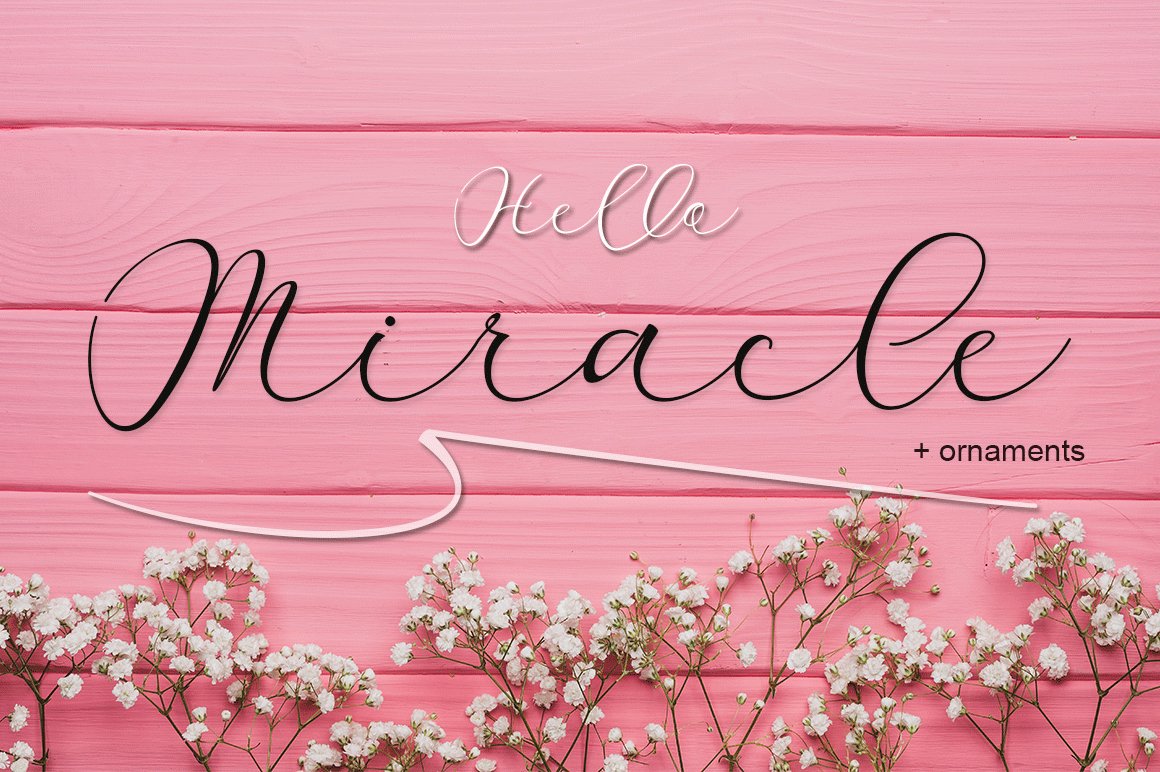
Miracle Script Font
Miracle font is new solution for a project, present with sort of classic decorative copperplate script with a modern twist. It is a display font meant for vintage logos, fashion labels, badges, food packaging designs, especially wedding card.